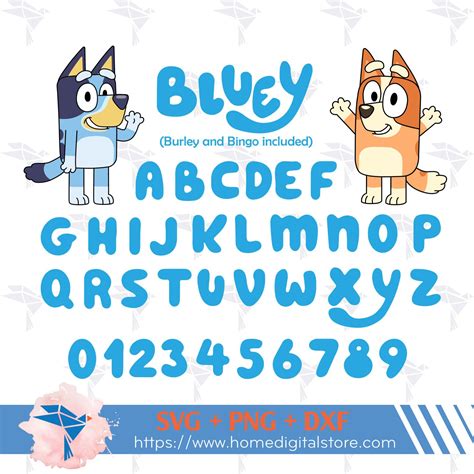
We can help you convert any text into beautiful fonts with eye. Web try our text generator and create cool graphics for bluey font, then you can save the font image to your pc, mac, linux, ios and android device. Web the bluey font is a typeface that is used for the lettering in the “bluey” tv series logo. Does anyone know what font is bluey or something close to it and even better if it's free. Web i actually got the font on a sketchy free download website, so you can probably find a free version of it too somewhere. Specifically, we found two fonts that are. Web bluey is a font inspired by an australian children’s tv show called bluey that first aired in 2018. Web aug 11, 2020 at 14:51.
Web bluey is a font inspired by an australian children’s tv show called bluey that first aired in 2018. We can help you convert any text into beautiful fonts with eye. Web i actually got the font on a sketchy free download website, so you can probably find a free version of it too somewhere. Web try our text generator and create cool graphics for bluey font, then you can save the font image to your pc, mac, linux, ios and android device. Web bluey is a font inspired by an australian children’s tv show called bluey that first aired in 2018. Specifically, we found two fonts that are. Web the bluey font is a typeface that is used for the lettering in the “bluey” tv series logo. Web aug 11, 2020 at 14:51. Does anyone know what font is bluey or something close to it and even better if it's free.